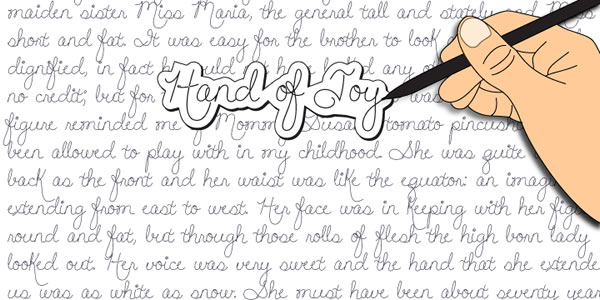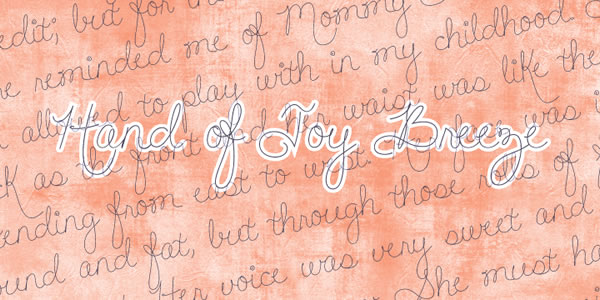
Hand of Joy Font
About Hand of Joy Font
Fantastic, elegant, informal handwriting. It’s Hand of Joy! Comes with alternate (end of word) characters with extra swooshes.